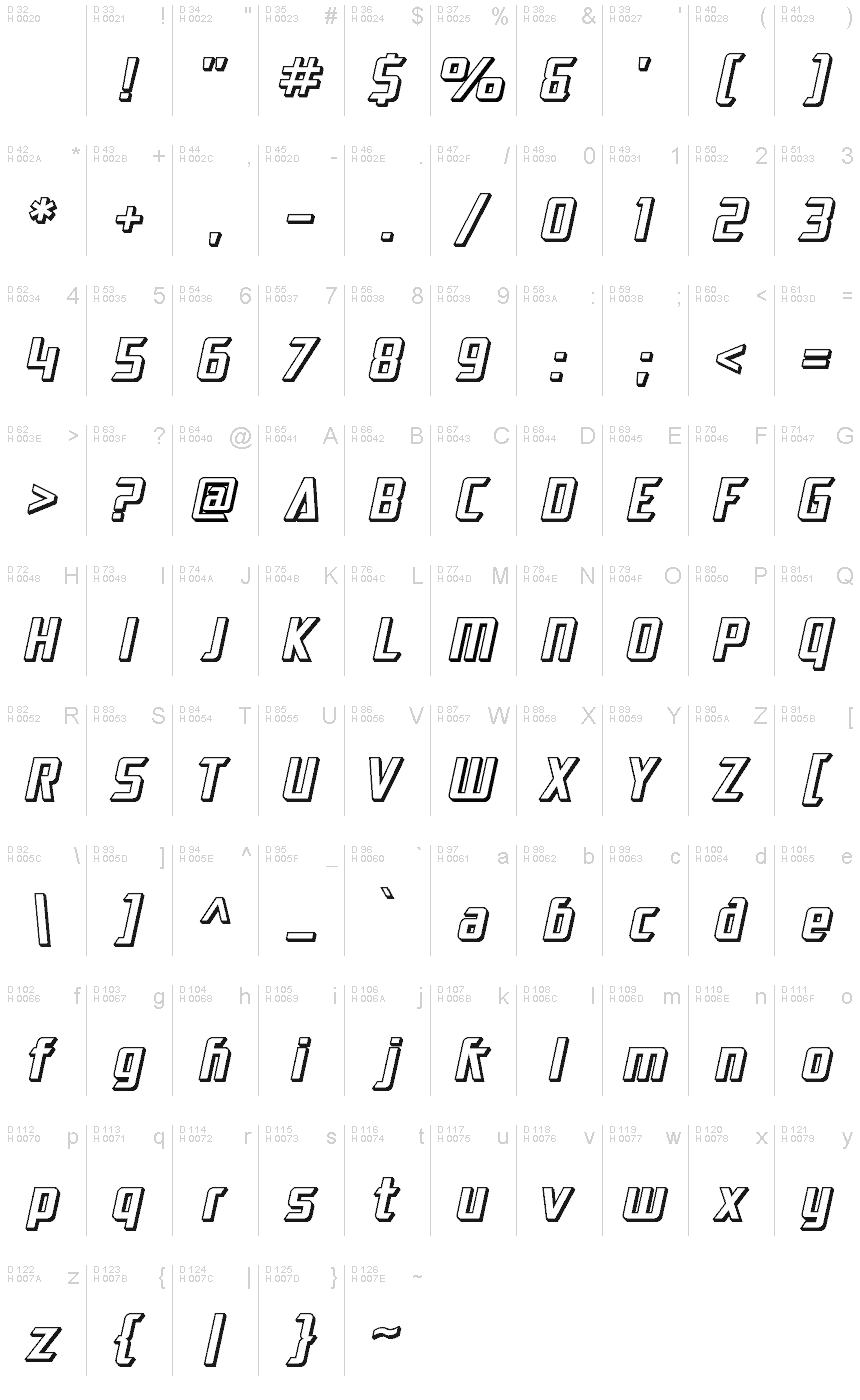
SF Electrotome Shaded Oblique
SF Electrotome Shaded Oblique, a distinguished member of the SF Electrotome family, emerges from the creative minds at ShyFonts Type Foundry to deliver a bold statement in the realm of display typography. Crafted with a semi-condensed width, this font exudes a sophisticated yet futuristic flair that instantly captures attention and leaves a lasting impression.
With its distinct shaded strokes and oblique stance, SF Electrotome Shaded Oblique offers an aesthetic that is as versatile as it is visually striking. The font's sharp angles and geometric form echo the essence of modernity, while the clever use of shading adds depth and dimension to each character.
Ideal for projects that demand cutting-edge visual impact such as tech branding, gaming interfaces, or promotional material for innovative products—this font's style ensures your message stands out. Its futuristic vibe aligns seamlessly with contemporary design trends making it an invaluable asset for designers aiming to push creative boundaries.
SF Electrotome Shaded Oblique is not merely a typeface but an invitation to explore the potential of typography in crafting immersive experiences and commanding narratives within any creative sphere.
With its distinct shaded strokes and oblique stance, SF Electrotome Shaded Oblique offers an aesthetic that is as versatile as it is visually striking. The font's sharp angles and geometric form echo the essence of modernity, while the clever use of shading adds depth and dimension to each character.
Ideal for projects that demand cutting-edge visual impact such as tech branding, gaming interfaces, or promotional material for innovative products—this font's style ensures your message stands out. Its futuristic vibe aligns seamlessly with contemporary design trends making it an invaluable asset for designers aiming to push creative boundaries.
SF Electrotome Shaded Oblique is not merely a typeface but an invitation to explore the potential of typography in crafting immersive experiences and commanding narratives within any creative sphere.